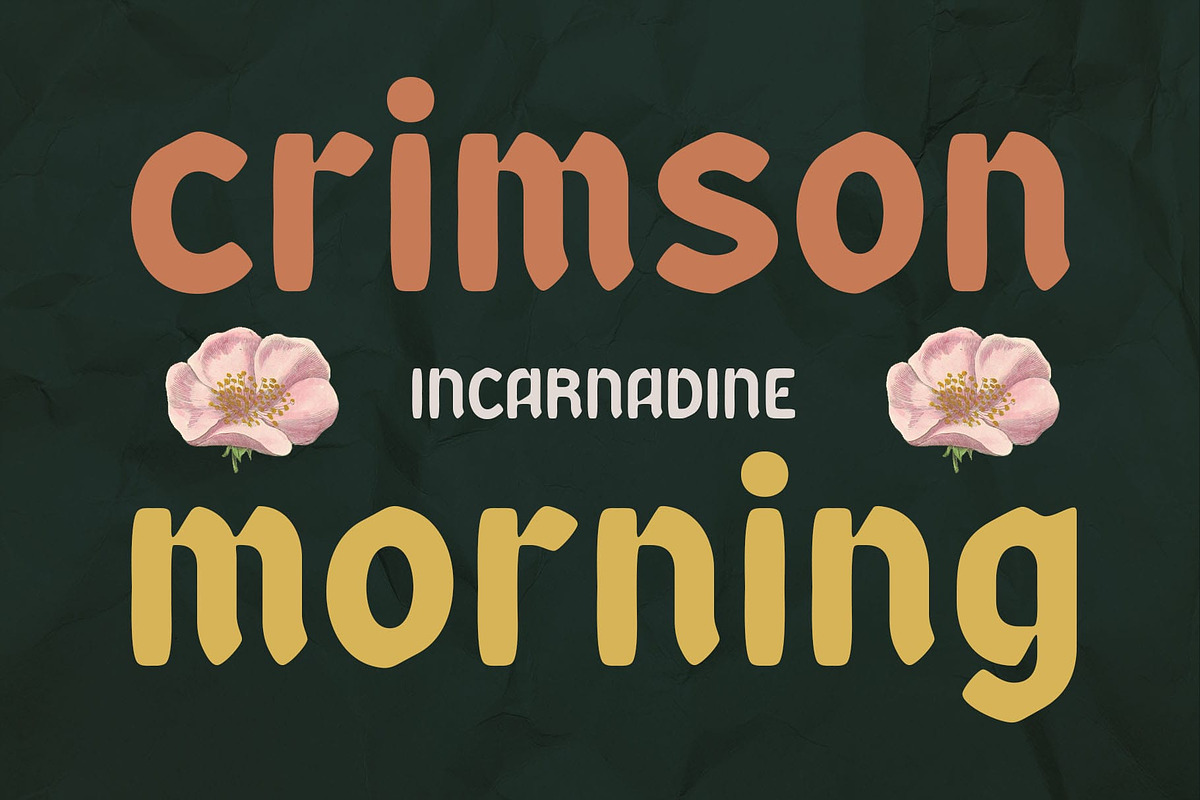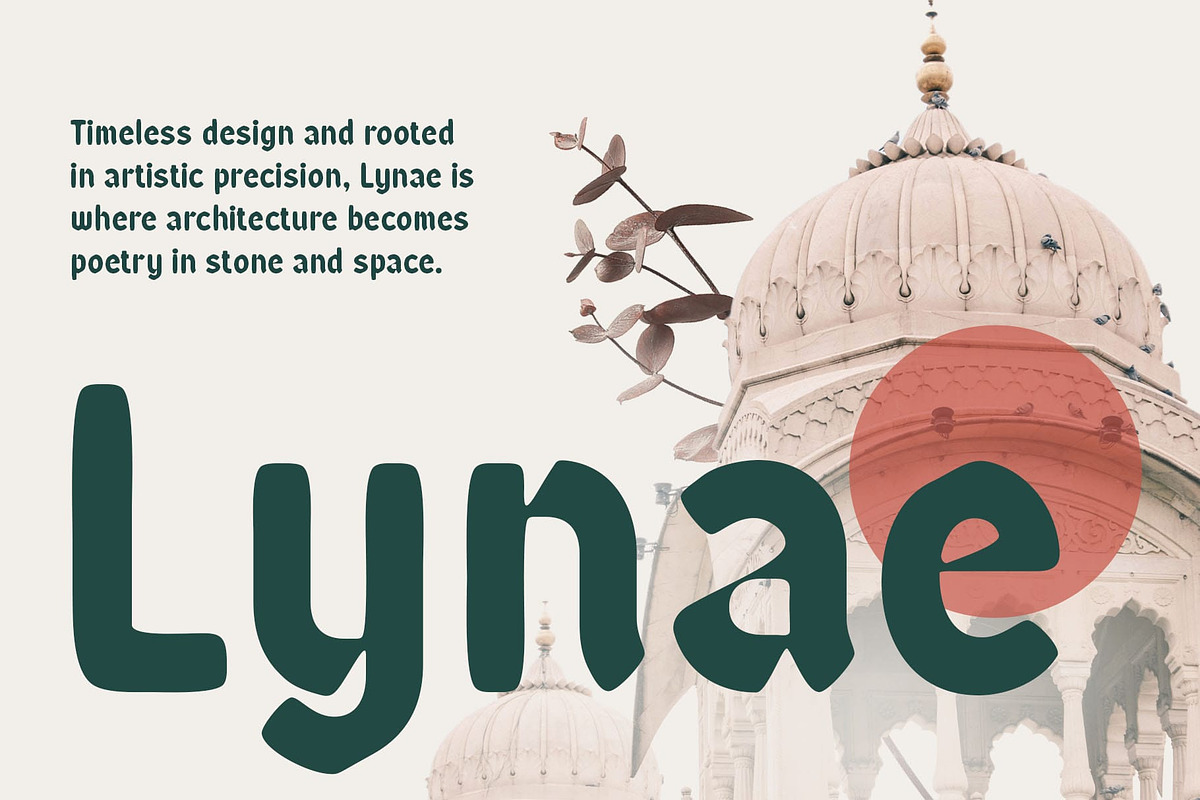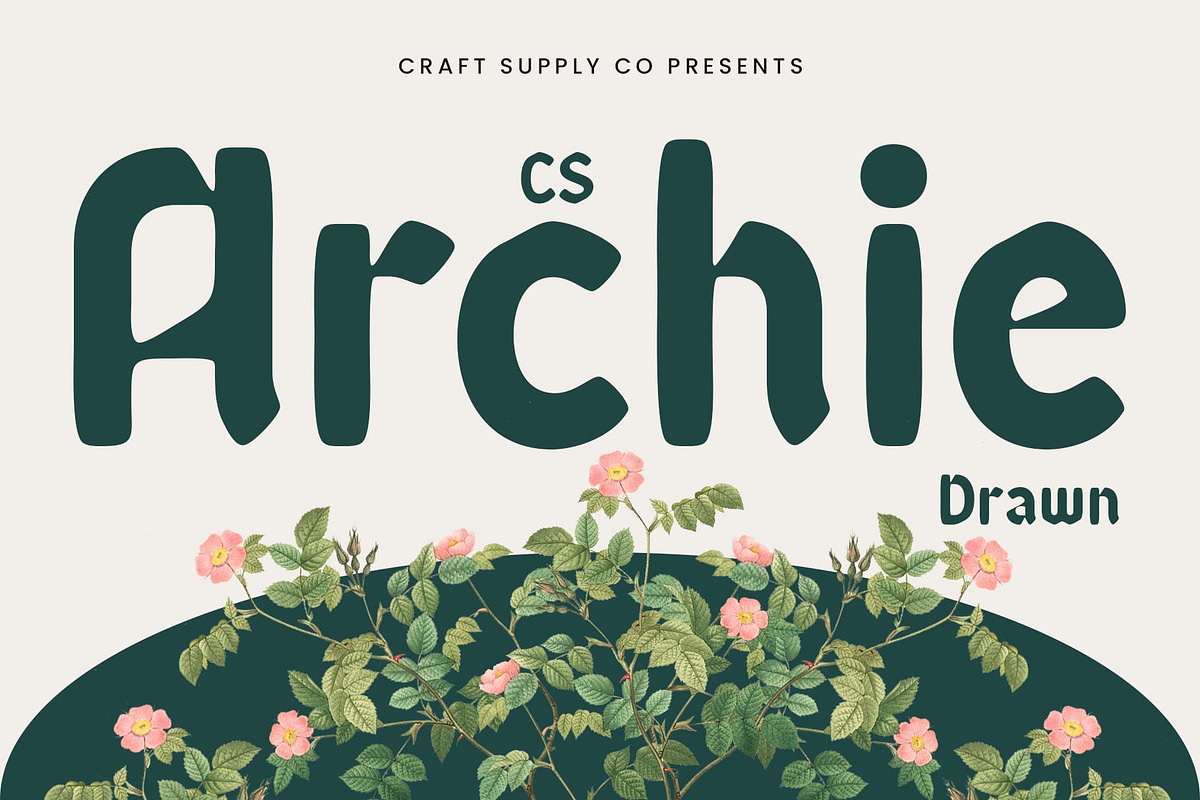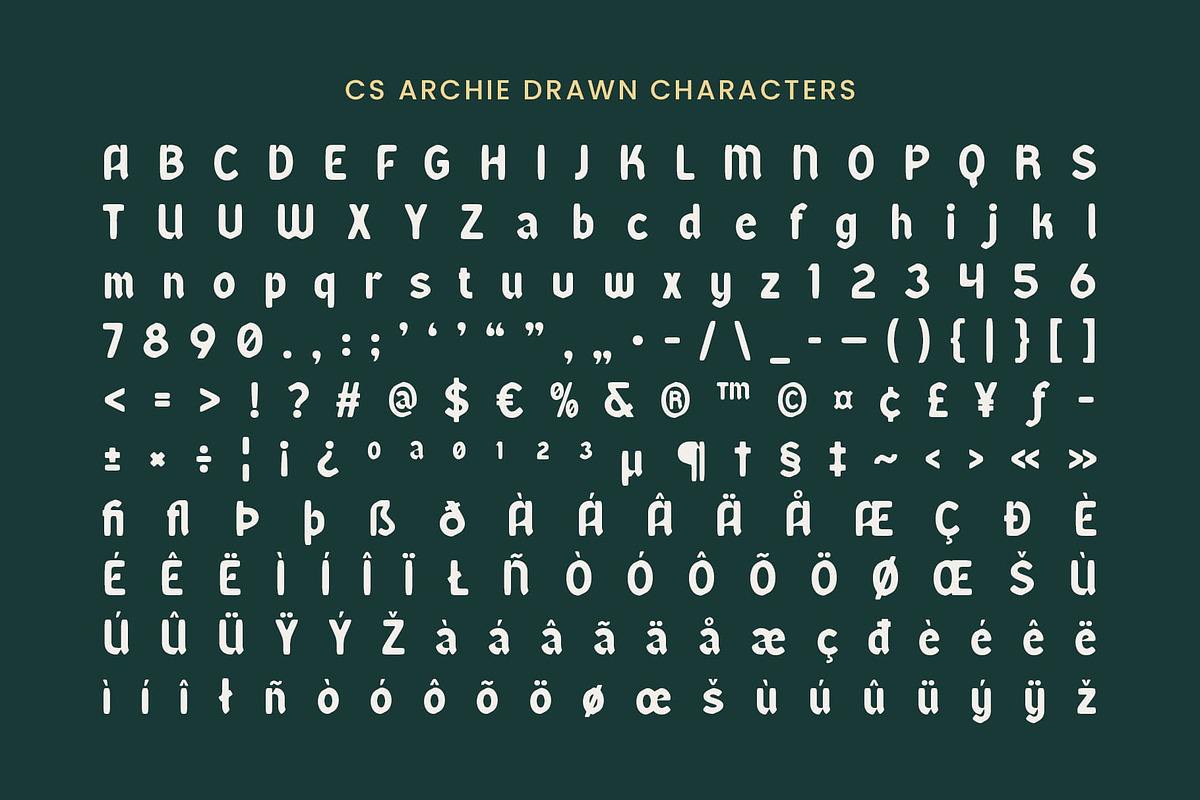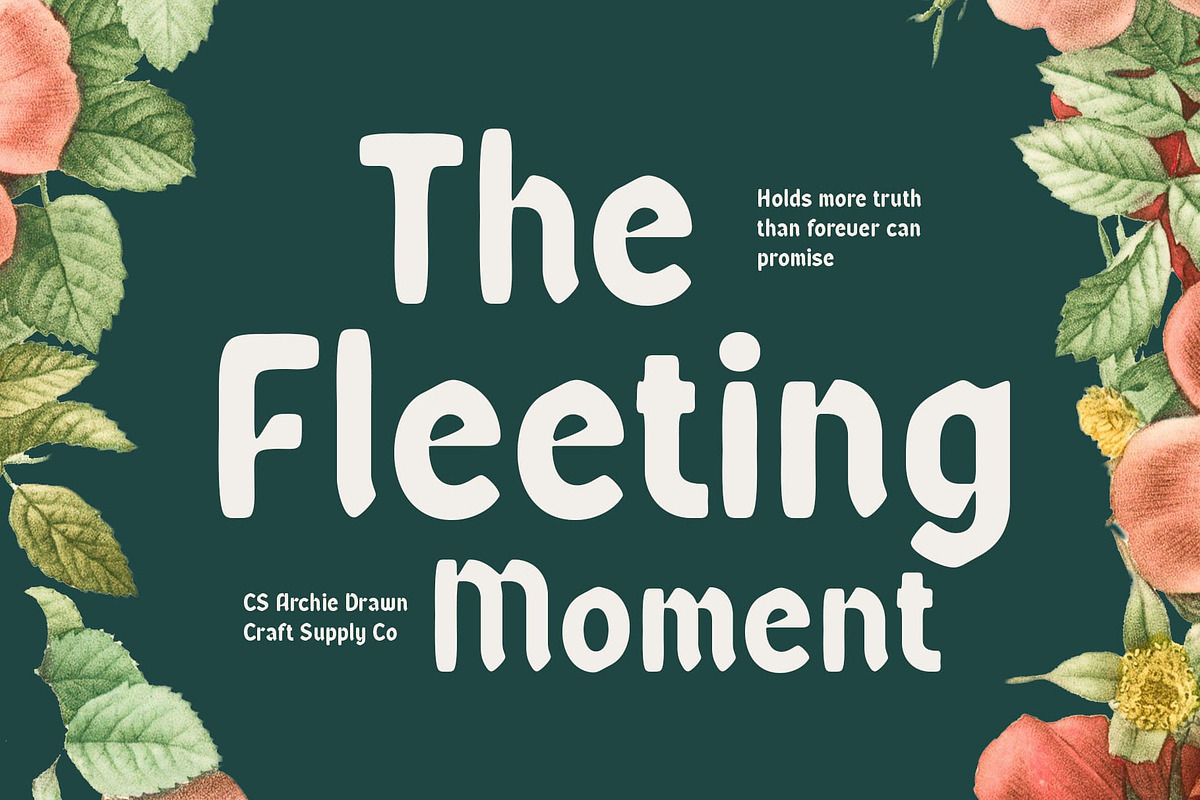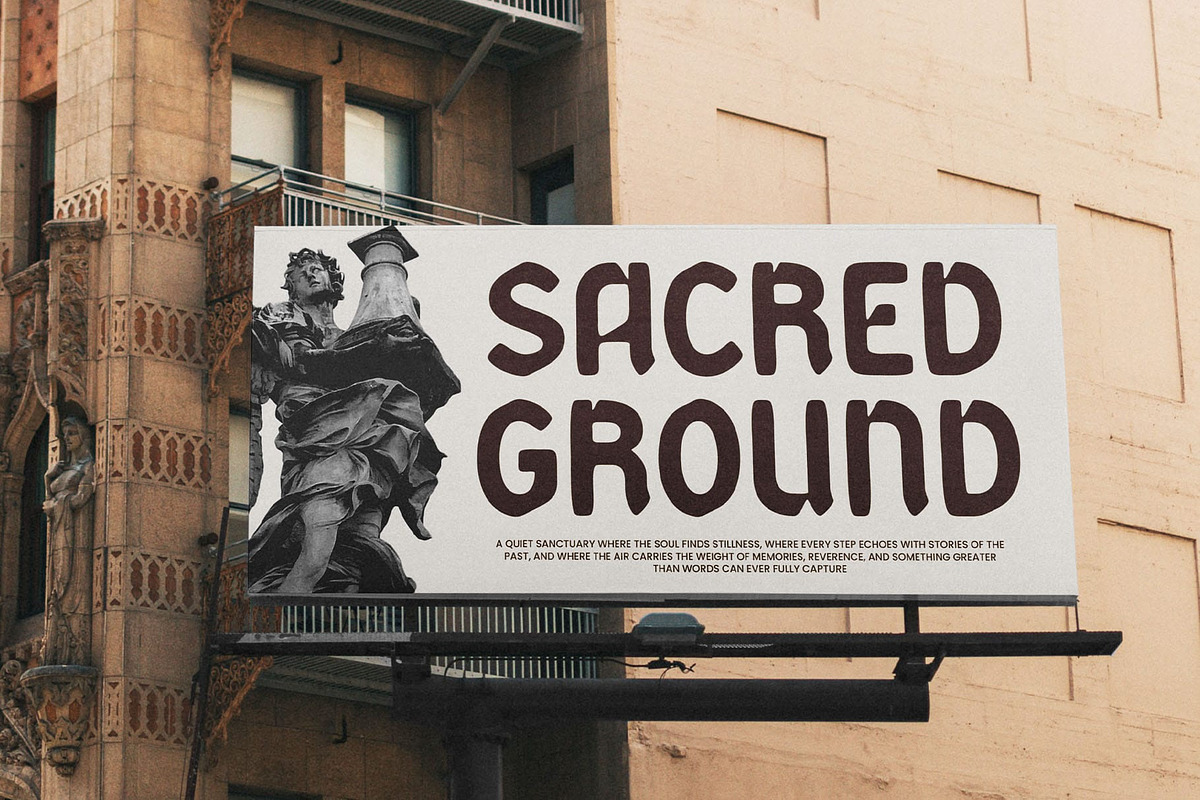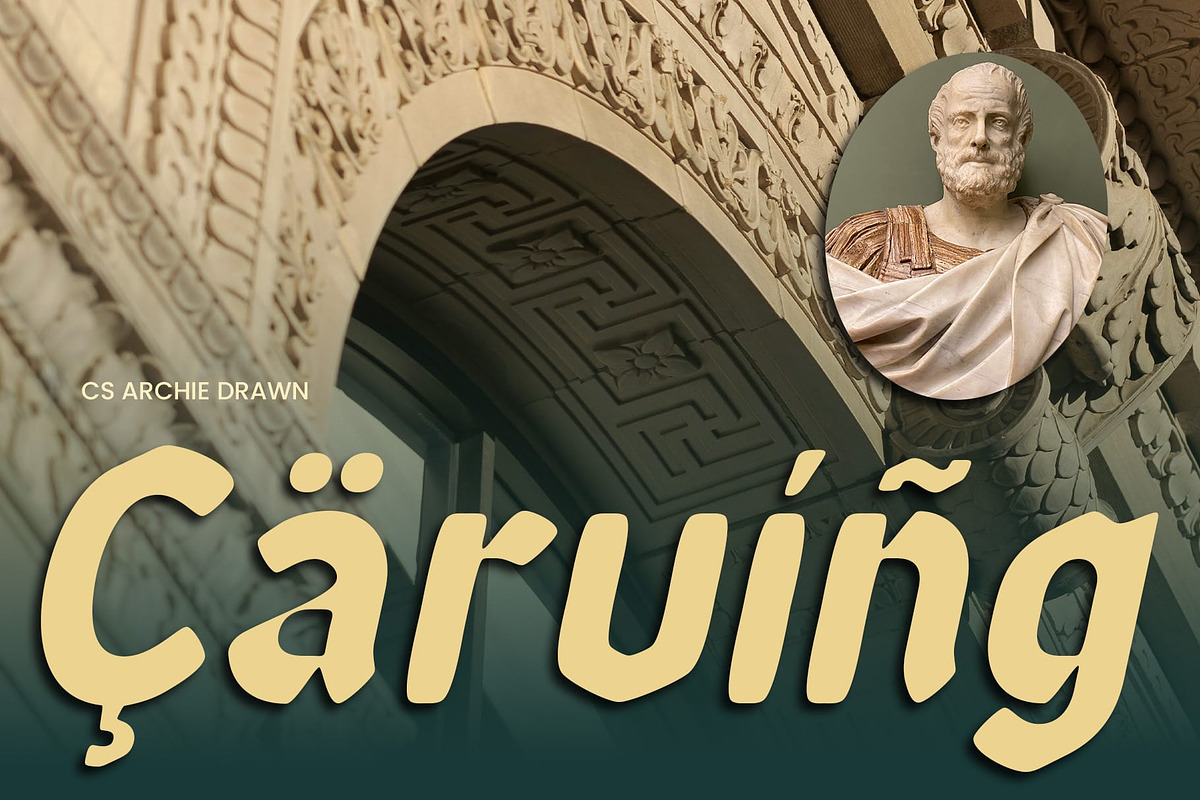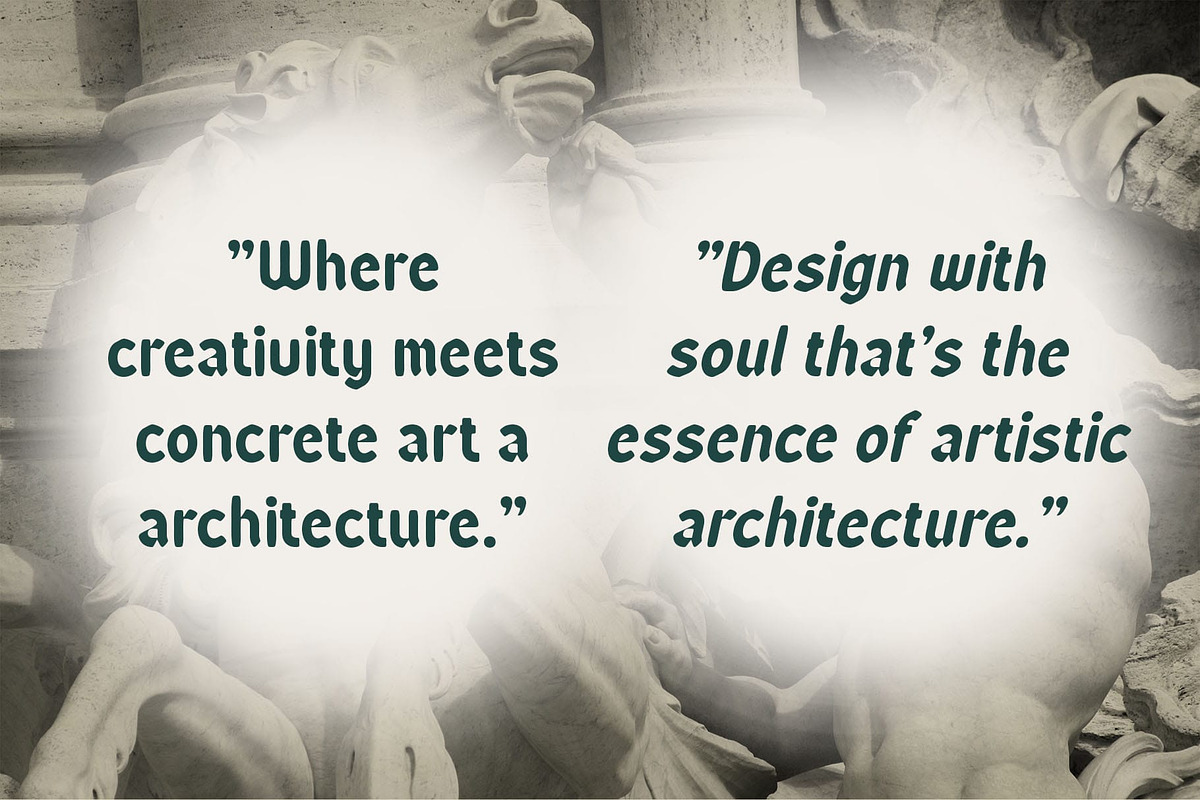
CS Archie Drawn
CS Archie Drawn – Where Gothic Tradition Meets Handcrafted Modernism
Modern Structure with Gothic Roots CS Archie Drawn is a bold, unique display sans-serif font that blends gothic-inspired letterforms with a clean, modern construction. Its solid geometric shapes reflect architectural clarity, while subtle gothic influences bring a refined, classic touch. This fusion results in a typeface that feels distinctive, structured, and thoughtfully styled.
Artistic Hand-Drawn Texture for a Human Touch What sets this gothic font apart is its bold, handcrafted, drawn texture. The soft irregularities around the edges add warmth and a personal feel to its strong sans-serif form, creating a font that’s expressive and full of character. This detail adds depth and texture, making it stand out in visually engaging compositions.
Perfect for Creative, Character-Driven Visuals This modern gothic font shines in projects that value originality and style. Whether for artistic branding, unique editorial layouts, or expressive posters, it offers a striking and memorable presence without relying on overtly dark or dramatic themes.
A Versatile Statement Font for Contemporary Expression From modern storytelling to bold identity systems, this display sans serif font delivers personality and presence. Its harmony of strong form and handcrafted texture allows it to adapt across styles—bringing a timeless yet fresh voice to any creative work.